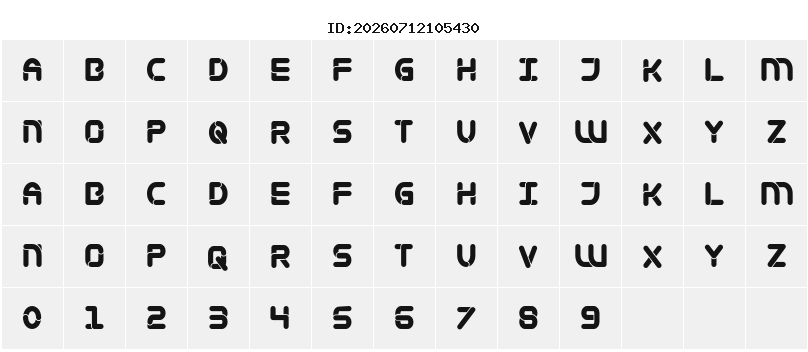
• Font Name: Mametosca 026
• Full Font Name: Mametosca026
• Designer: Mametos Nomos Diki Setiadi
• Manufacturer: Mametos Nomos
• Description: Mametos Nomos ( Diki Setiadi) the Creator
About Mametosca 026.otf
Mametosca 026.otf is a modern, elegant sans-serif font designed for ultimate readability and visual harmony. Perfect for branding, headlines, web design, and print materials.